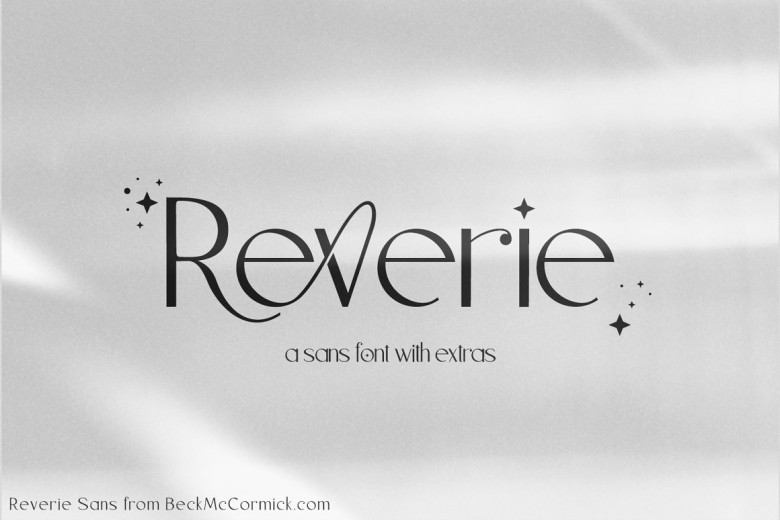
Reverie Font
Reverie Sans is an innovative new font to hit the market, designed by Modern Typeface Studio to be stylish sans font with unique alternative characters such as star-shaped glyphs and interconnected ligatures for modern design. Reverie is great for printing as well as websites.
Reverie Sans Serif Font